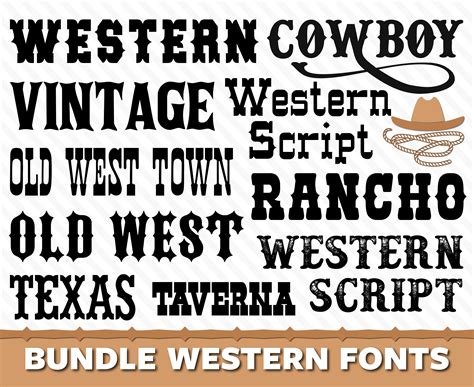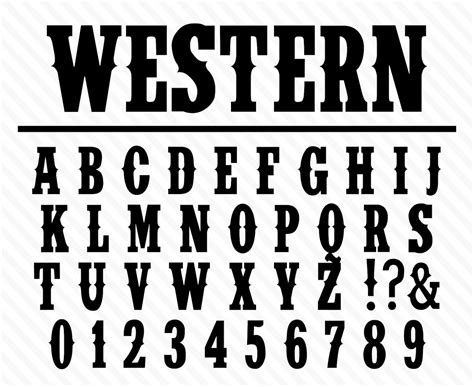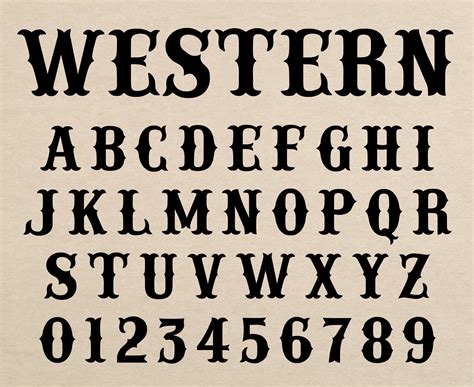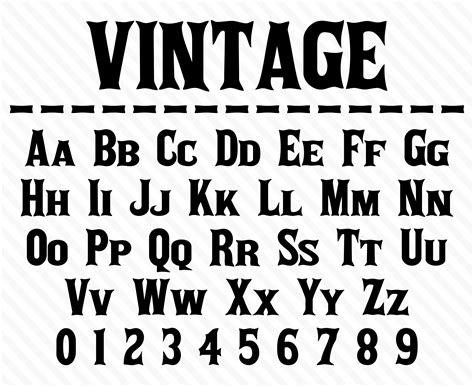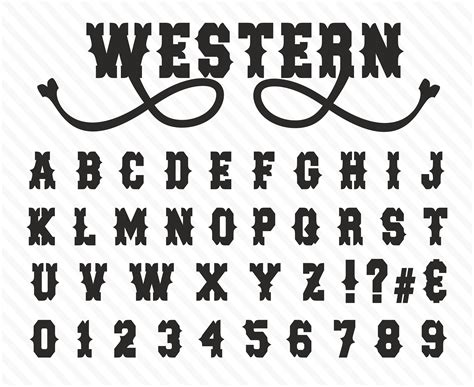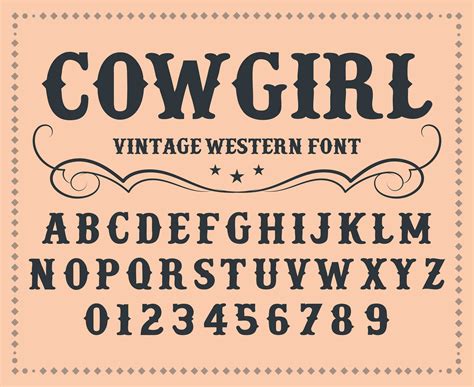
In the vast landscape of typography, few styles evoke the spirit of adventure and nostalgia quite like the Old Western Font. This distinctive font style transports us to the days of the Wild West, conjuring images of dusty trails, saloon doors, and the iconic landscapes of the American frontier. Whether you're designing a poster for a Western-themed event, creating a logo for a rustic brand, or simply adding a touch of frontier charm to your digital projects, the Old Western Font is a versatile and captivating choice.
The History and Evolution of Old Western Fonts
The origins of the Old Western Font can be traced back to the late 19th and early 20th centuries, a time when the American West was being explored and settled. The font style was heavily influenced by the hand-lettering techniques used in signage, posters, and advertisements of the era. These designs often featured bold, rugged strokes and a sense of rugged individualism that reflected the spirit of the frontier.
Over time, the Old Western Font has evolved to include a variety of styles and variations. Some fonts maintain the classic, hand-drawn look, while others incorporate more modern elements to create a unique blend of old and new. Despite these variations, the core characteristics of the Old Western Font—its bold, rugged strokes and nostalgic charm—remain consistent.
Characteristics of Old Western Fonts
The Old Western Font is characterized by several key features that set it apart from other typographic styles. These characteristics contribute to its distinctive look and feel, making it a popular choice for a wide range of applications.
- Bold Strokes: The Old Western Font often features thick, bold strokes that give it a strong, rugged appearance. This boldness is reminiscent of the hand-lettered signs and posters of the Wild West era.
- Rugged Edges: Many Old Western Fonts incorporate rough, uneven edges that add to their rustic charm. These edges can be subtle or pronounced, depending on the specific design.
- Nostalgic Appeal: The Old Western Font evokes a sense of nostalgia, transporting viewers to a bygone era. This nostalgic appeal makes it a popular choice for themes related to the Wild West, vintage design, and rustic aesthetics.
- Versatility: Despite its distinctive style, the Old Western Font is surprisingly versatile. It can be used in a variety of contexts, from logos and branding to posters and digital media.
Popular Old Western Fonts
There are numerous Old Western Fonts available, each with its unique characteristics and style. Here are some of the most popular options:
| Font Name | Description |
|---|---|
| Western | A classic Old Western Font with bold strokes and a rugged, hand-drawn appearance. It's perfect for posters, logos, and other design projects with a Wild West theme. |
| Cowboy | This font features a more modern take on the Old Western style, with clean lines and a slightly more refined look. It's ideal for branding and digital media. |
| Frontier | A versatile Old Western Font that combines bold strokes with a touch of elegance. It's suitable for a wide range of applications, from logos to posters. |
| Rustic | This font has a more rustic and weathered appearance, with rough edges and a hand-drawn feel. It's perfect for projects that require a truly authentic Old Western look. |
These fonts are just a few examples of the many Old Western Fonts available. Each font offers a unique take on the classic style, allowing designers to choose the perfect option for their specific needs.
Using Old Western Fonts in Design Projects
The Old Western Font is a versatile choice for a wide range of design projects. Whether you're creating a logo, designing a poster, or developing a website, the Old Western Font can add a touch of frontier charm and nostalgia to your work. Here are some tips for using Old Western Fonts effectively:
- Choose the Right Font: Select an Old Western Font that complements the overall style and theme of your project. Consider the specific characteristics of each font and how they will enhance your design.
- Pair with Complementary Fonts: Old Western Fonts can be paired with a variety of other fonts to create a cohesive and visually appealing design. Consider using a complementary font for body text or headings to balance the bold, rugged look of the Old Western Font.
- Use Appropriate Sizing: Old Western Fonts are often best used in larger sizes, where their bold strokes and rugged edges can be fully appreciated. Avoid using them in small sizes, as the details may become difficult to read.
- Consider Color and Texture: The color and texture of your Old Western Font can significantly impact its overall appearance. Experiment with different colors and textures to achieve the desired effect. For example, a weathered, textured look can enhance the rustic charm of the font.
By following these tips, you can effectively incorporate Old Western Fonts into your design projects, creating visually stunning and nostalgic designs that capture the spirit of the Wild West.